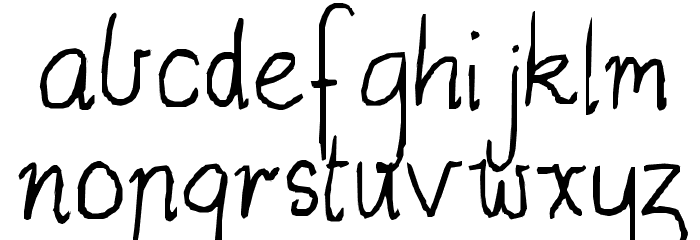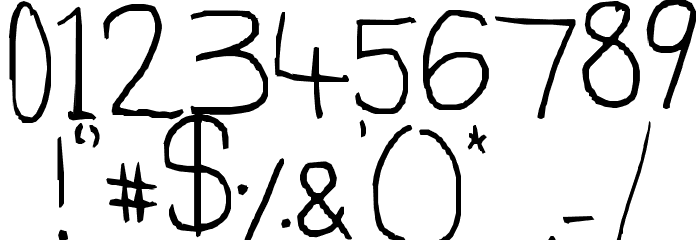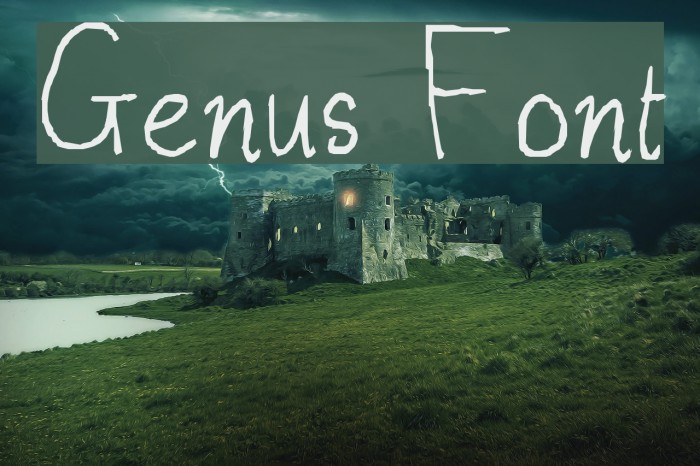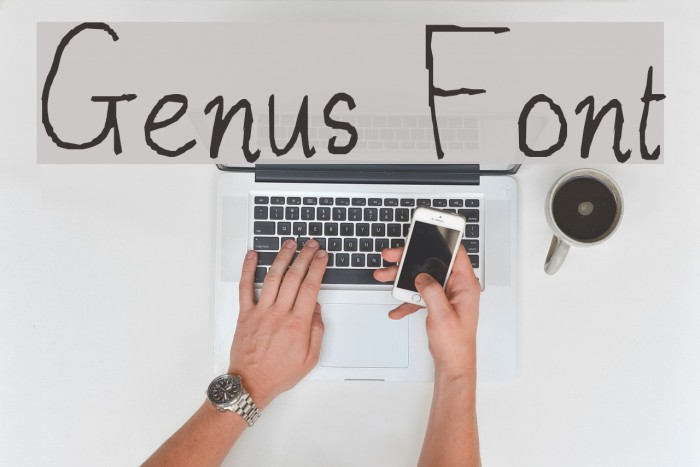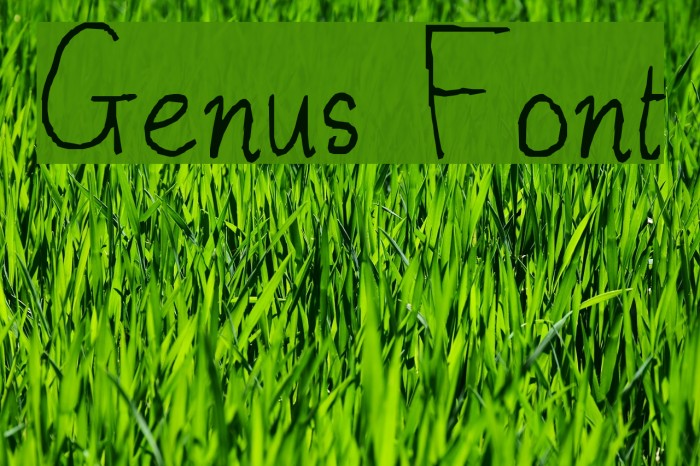
Genus Font
This font features a playful and informal handwritten style, characterized by irregular strokes and a casual appearance. The uppercase letters are tall and slightly narrow, with a whimsical touch that adds personality to each character. The lowercase letters maintain a consistent flow, enhancing the handwritten feel. Numbers are distinct and easy to read, with a similar playful style. Special characters are creatively designed, fitting seamlessly with the overall aesthetic. This font exudes a sense of fun and creativity, making it ideal for projects that require a personal touch.
A playful, informal handwritten font with a whimsical style.
- Proposed Projects: Ideal for greeting cards, children's books, personal blogs, and creative branding projects.
- Overall Style: Casual
- Use Case: Logos, Headlines, Informal text